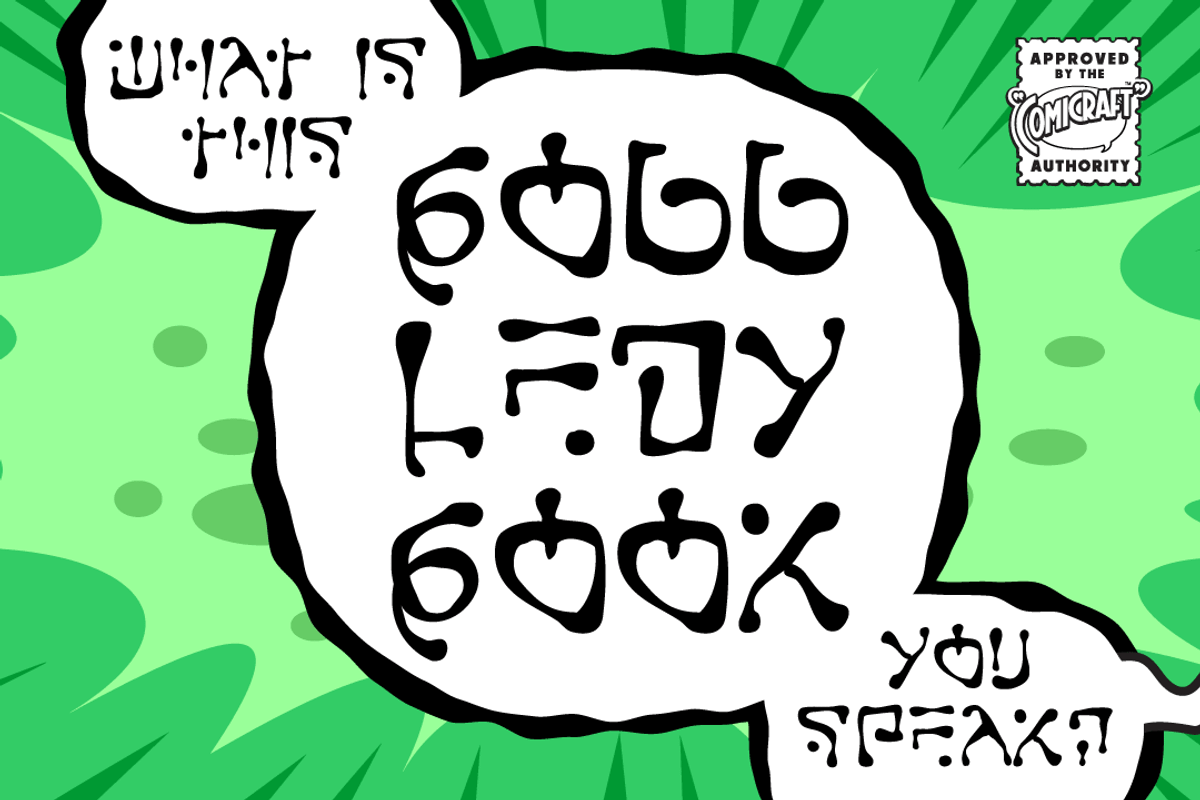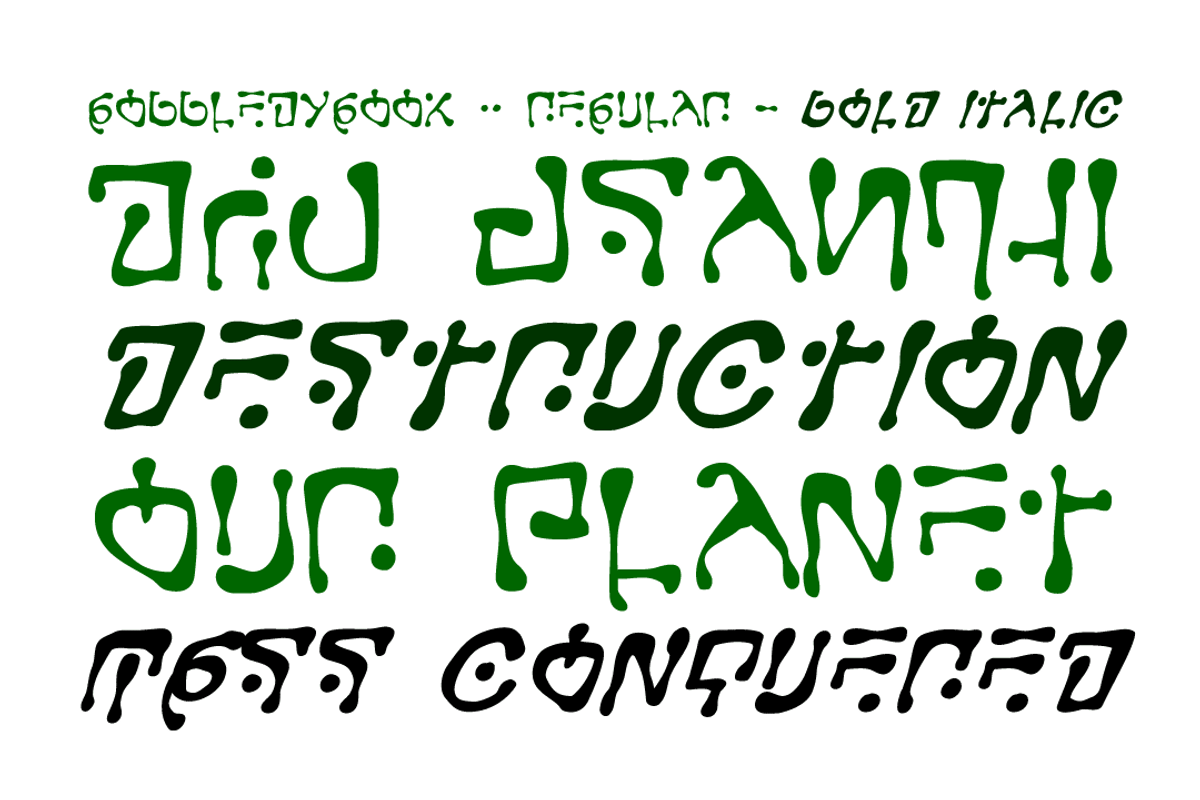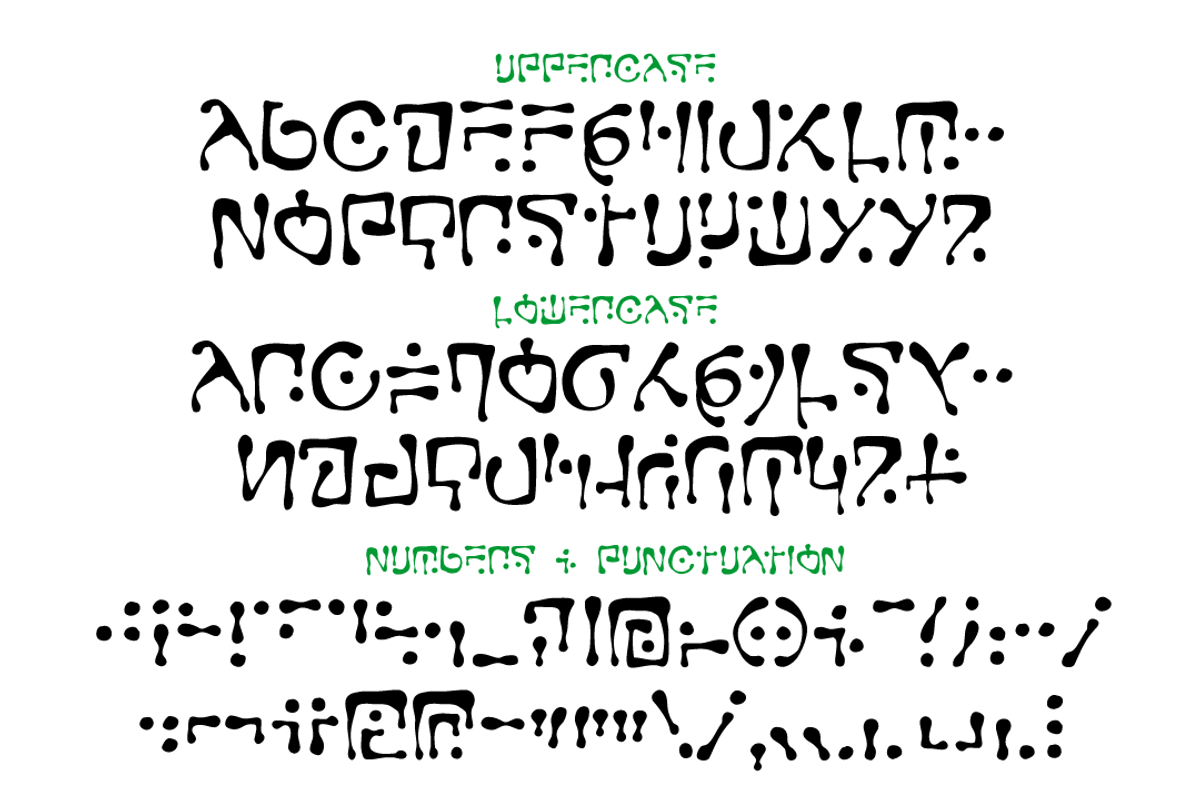
Gobbledygook
Gobbledygook by comicraft is a font selected for branding, posters, packaging, typography.
Gobbledygook by Comicraft Fonts fits naturally into Branding, posters, packaging, typography.